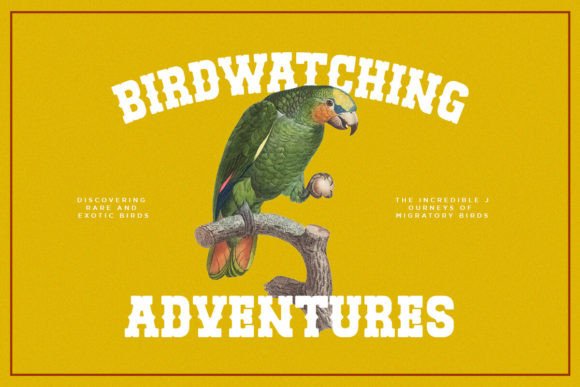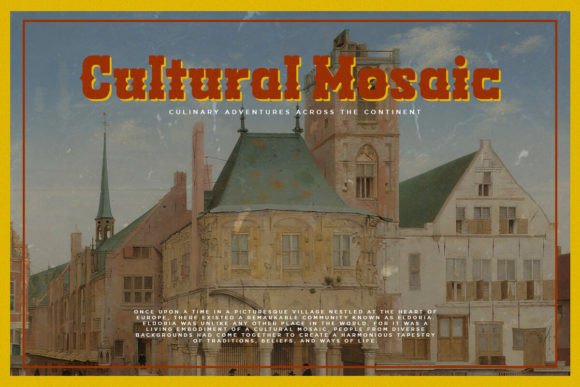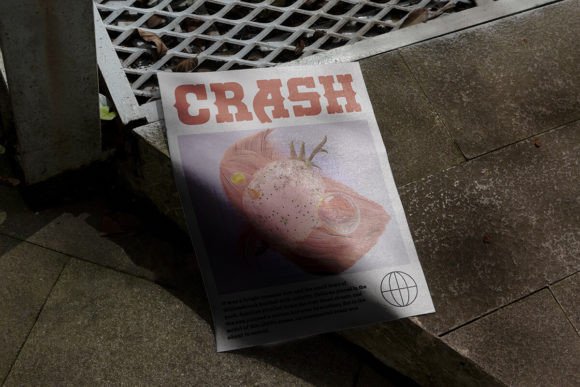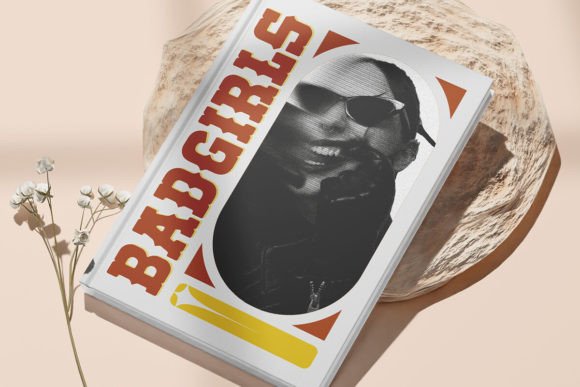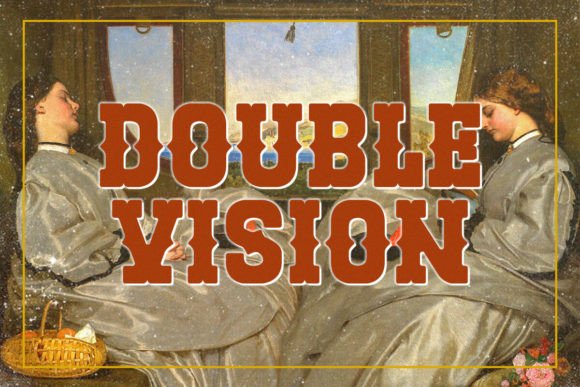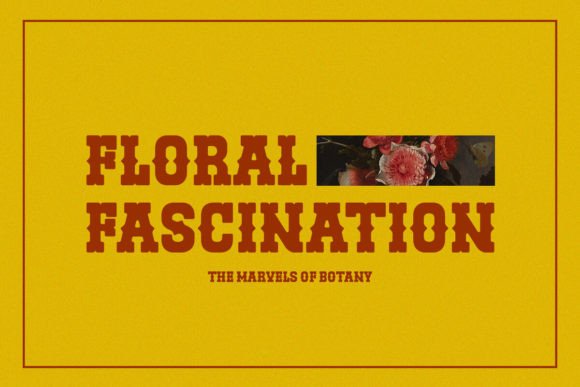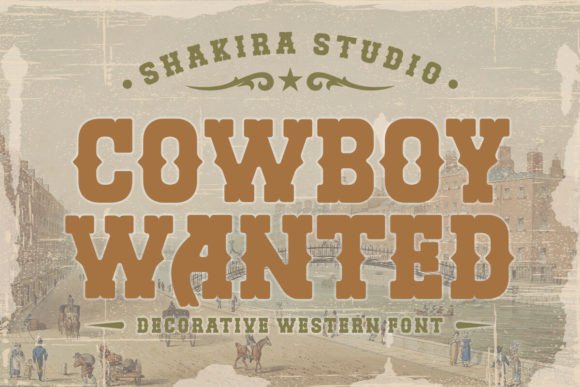
Introducing “Cowboy Wanted” – The Ultimate Western Retro Serif Font!
Saddle up and embrace the wild, wild west with Cowboy Wanted, the font that’s taking the design world by storm. This font embodies the perfect blend of old-school ruggedness and contemporary flair, making it the hottest ticket in town for all your Western-inspired design needs.
The Essence of the Old West
Each character in Cowboy Wanted is meticulously crafted to capture the essence of the Old West, from the sweeping serifs to the rugged lines. The font’s unique design elements transport you back to a time of cowboys, saloons, and gold rushes, evoking a sense of nostalgia and adventure.
Perfect for Western-Inspired Designs
Whether you’re working on a saloon-inspired logo, a rustic poster, or a themed event invitation, Cowboy Wanted adds that authentic Western touch that’s so in demand right now. The font’s versatility allows you to use it for a wide range of design projects, from:
- Event invitations and tickets
- Social media graphics and more
What Sets Cowboy Wanted Apart
In a crowded market of fonts and typefaces, Cowboy Wanted stands out from the rest. Here are just a few reasons why:
- Unique Design: Cowboy Wanted boasts a distinctive design that blends traditional Western elements with modern flair.
- High-Quality Craftsmanship: Each character is meticulously crafted to ensure a high level of quality and attention to detail.
- Versatility: The font is suitable for a wide range of design projects, from bold headlines to subtle text.
Get Ready to Lasso the Trendiest Font of the Moment
Don’t miss your chance to lasso the trendiest Western retro serif font of the moment. With Cowboy Wanted, you’ll be the sheriff of style in your design projects, standing out in the crowded frontier of design.
Why Designers and Crafters Love Cowboy Wanted
Key Features of Cowboy Wanted:
- Western retro serif font
- Unique design elements inspired by the Old West
- Meticulously crafted characters for high-quality results
- Suitable for a wide range of design projects